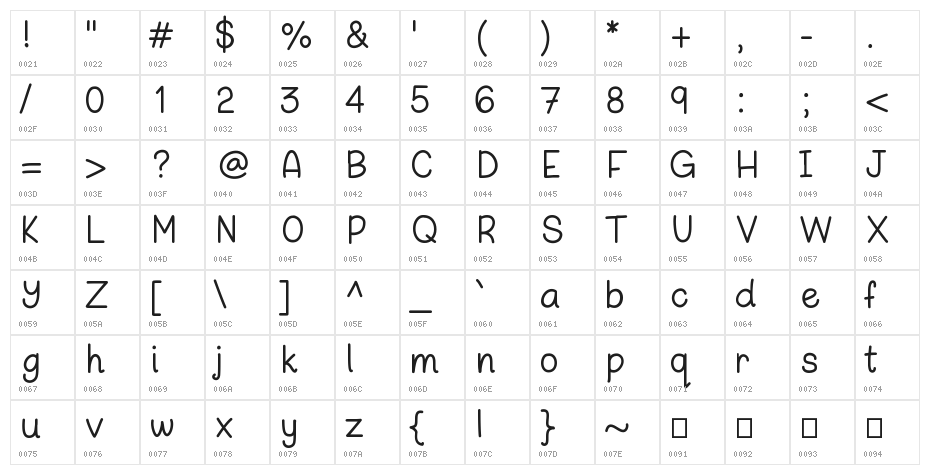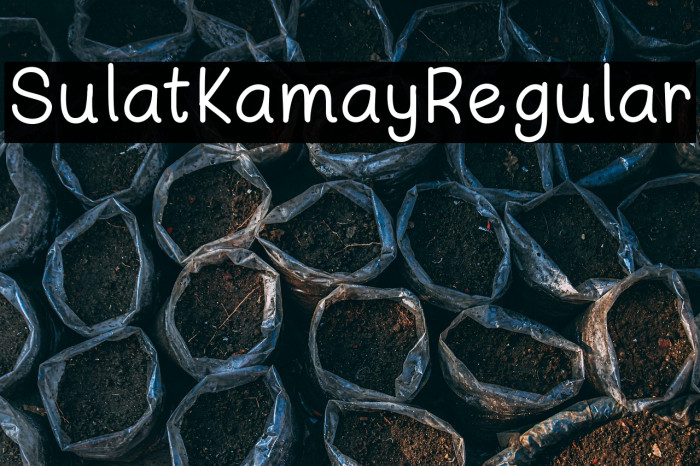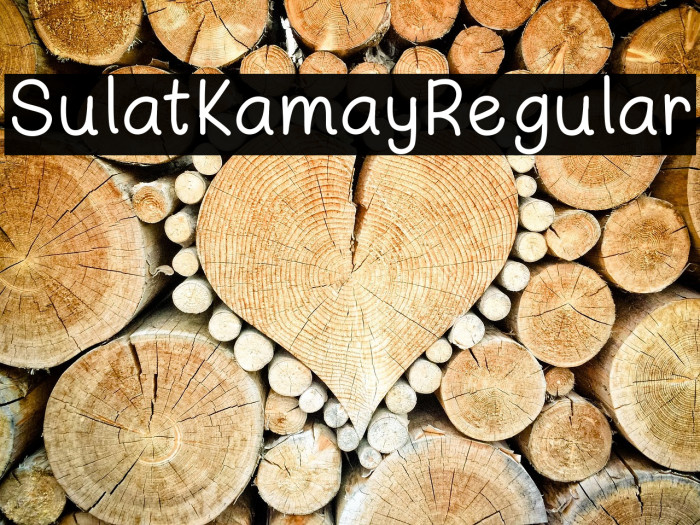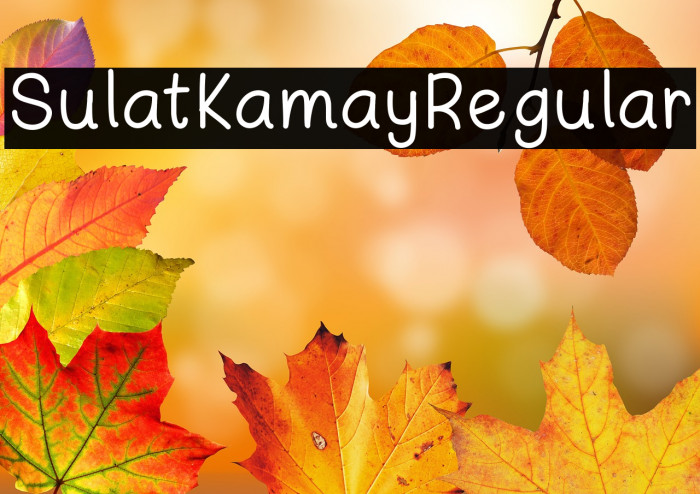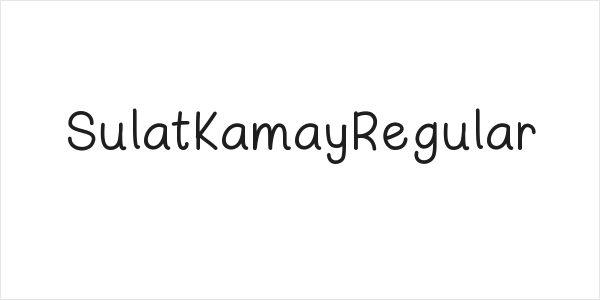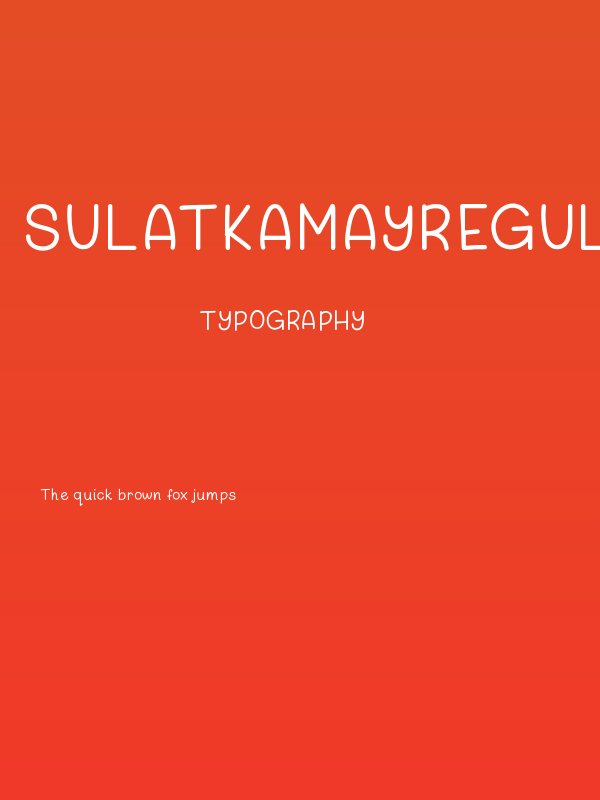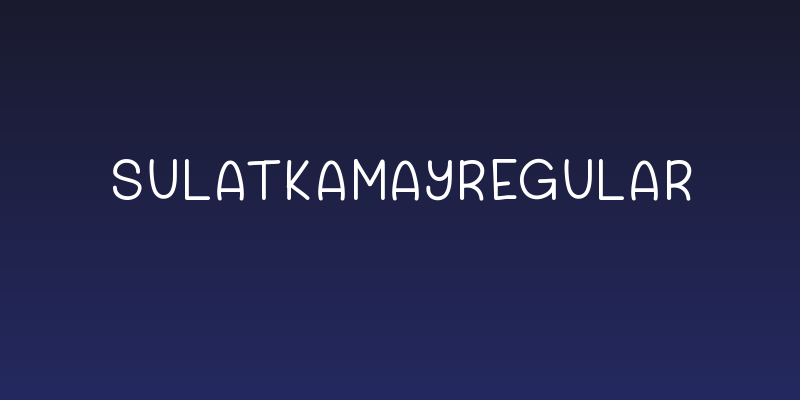
SulatKamayRegular Font
SulatKamayRegular Description
This font exudes a playful and handwritten charm, characterized by its rounded and slightly irregular letterforms. The strokes are consistent in thickness, giving it a uniform appearance while maintaining a casual and approachable feel. The uppercase and lowercase letters are well-balanced, with a slight tilt that adds to the handwritten aesthetic. The numerals and special characters follow the same style, ensuring cohesiveness across all glyphs. This font is perfect for projects that require a personal touch, such as invitations, greeting cards, or children's books. Its legibility and friendly appearance make it suitable for both digital and print media.
| Use Case | Headlines, Logos, Informal text |
| Proposed Projects | Ideal for invitations, greeting cards, children's books, and personal branding projects. |